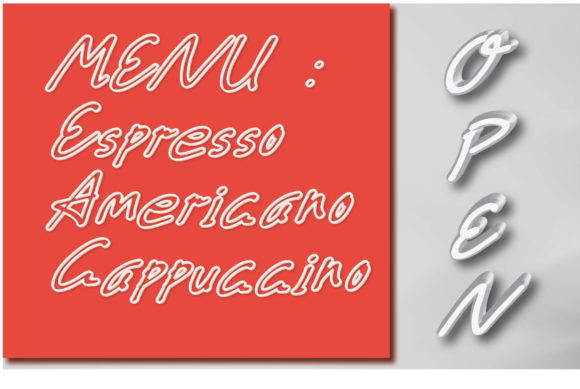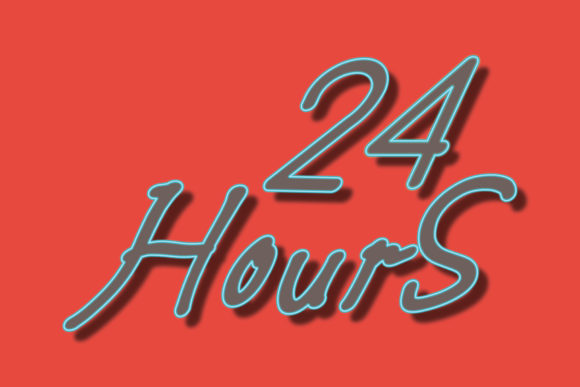
Arabica Beans Font: The Sweet and Friendly Handwritten Font for Your Designs
Are you tired of using the same old fonts in your designs? Look no further than Arabica Beans Font, a sweet and friendly handwritten font that’s sure to add a touch of personality to your projects. With its natural and unique style, Arabica Beans Font is incredibly versatile and can be used in a wide range of designs, from crafting and scrapbooking to branding and advertising.
The Characteristics of Arabica Beans Font
Arabica Beans Font is a handwritten font that’s designed to look like it was written with a pen or pencil. Its natural, flowing lines and subtle imperfections give it a charming and organic feel that’s perfect for designs that need a personal touch. The font is also highly legible, making it suitable for use in both large and small sizes.
One of the standout features of Arabica Beans Font is its unique style. Unlike more traditional fonts, Arabica Beans has a distinctly handmade feel that’s sure to set your designs apart. Whether you’re creating invitations, labels, or social media graphics, Arabica Beans Font is the perfect choice for adding a touch of whimsy and charm.
The Benefits of Using Arabica Beans Font
So why should you choose Arabica Beans Font for your designs? Here are just a few benefits of using this sweet and friendly font:
- Versatility: Arabica Beans Font can be used in a wide range of designs, from crafting and scrapbooking to branding and advertising. Its unique style makes it suitable for use in both digital and print designs.
- Legibility: Despite its handwritten nature, Arabica Beans Font is highly legible, making it suitable for use in both large and small sizes.
- Uniqueness: Arabica Beans Font has a distinctly handmade feel that’s sure to set your designs apart from the crowd.
How to Use Arabica Beans Font in Your Designs
Using Arabica Beans Font in your designs is easy. Here are a few tips to get you started:
- Pair it with other fonts: Arabica Beans Font pairs well with a variety of other fonts, including serif and sans-serif fonts. Experiment with different combinations to find the perfect look for your design.
- Use it in digital designs: Arabica Beans Font is suitable for use in digital designs, including social media graphics, email headers, and website text.
- Use it in print designs: Arabica Beans Font is also suitable for use in print designs, including invitations, labels, and brochures.
- Experiment with colors: Arabica Beans Font looks great in a variety of colors, from bright and bold to soft and pastel.
In conclusion, Arabica Beans Font is a sweet and friendly handwritten font that’s perfect for designers and crafters looking to add a touch of personality to their projects. With its natural and unique style, Arabica Beans Font is incredibly versatile and can be used in a wide range of designs. Whether you’re creating digital or print designs, Arabica Beans Font is the perfect choice for adding a touch of whimsy and charm.